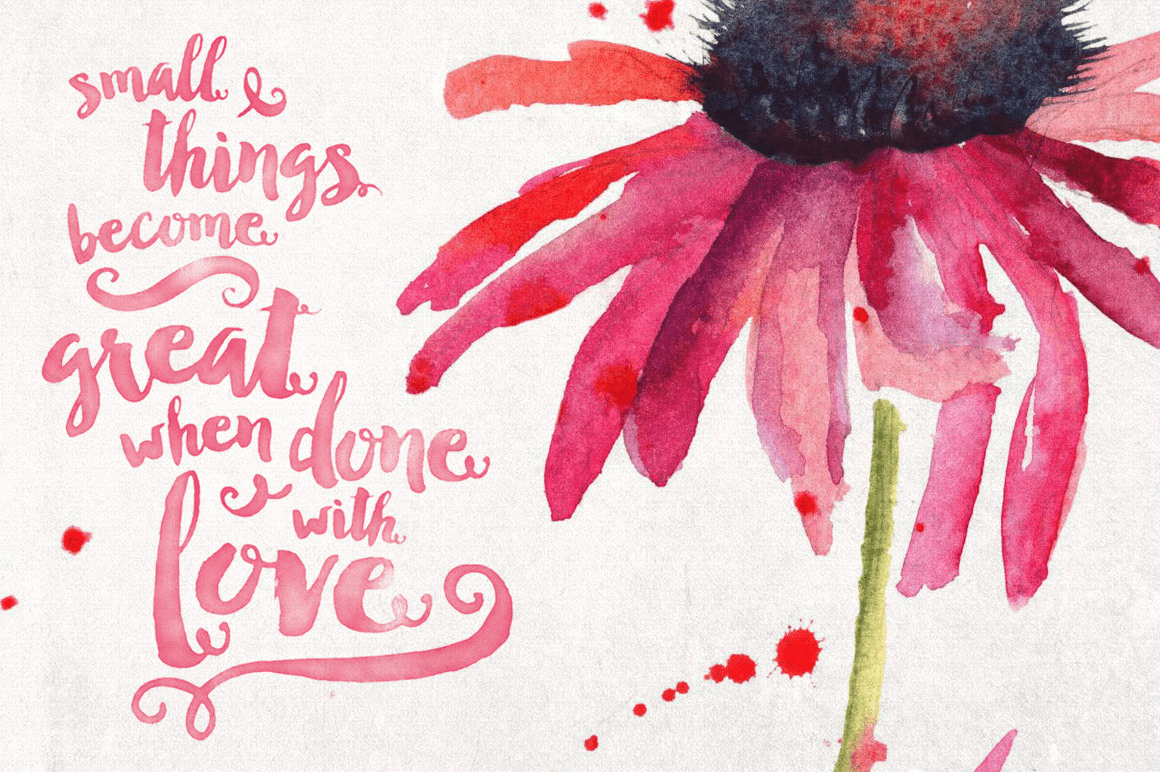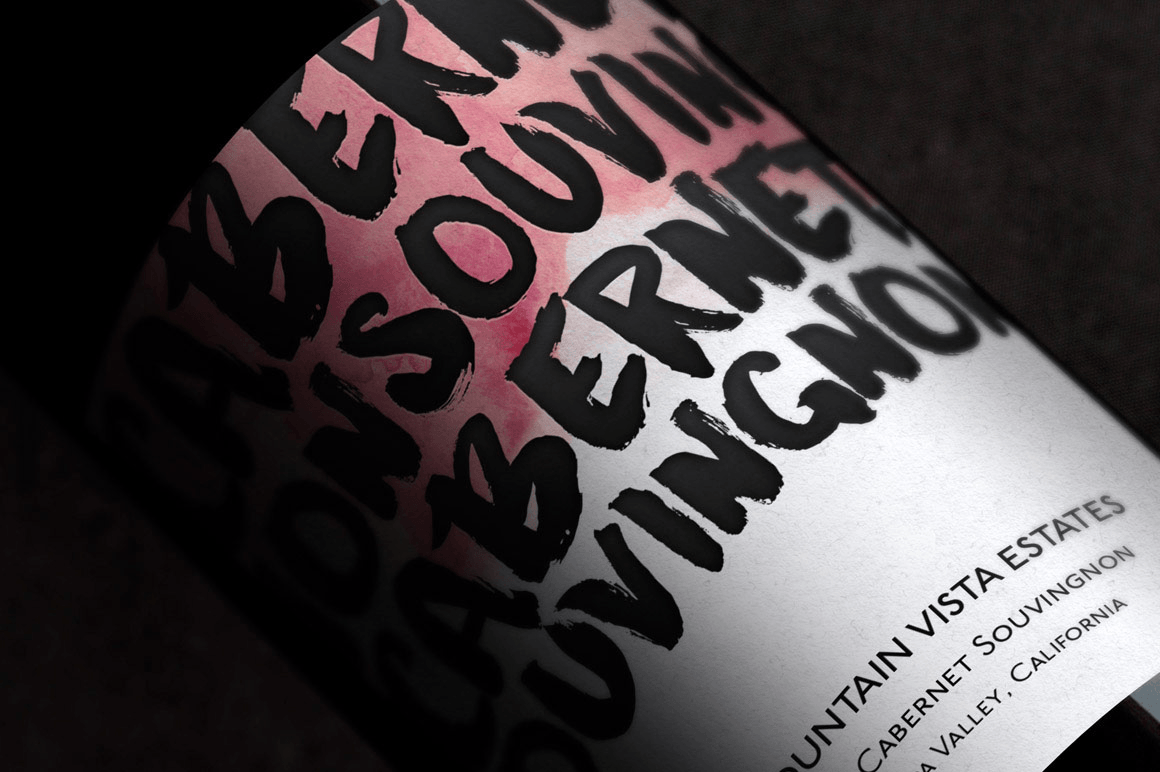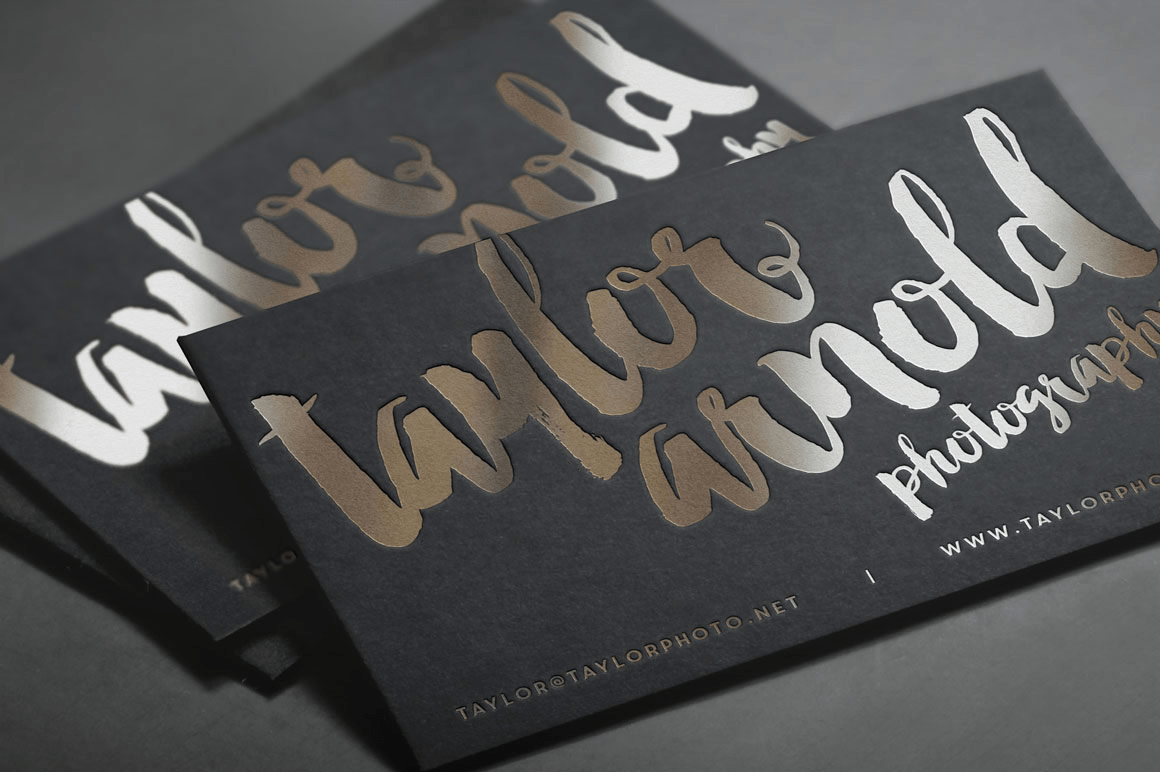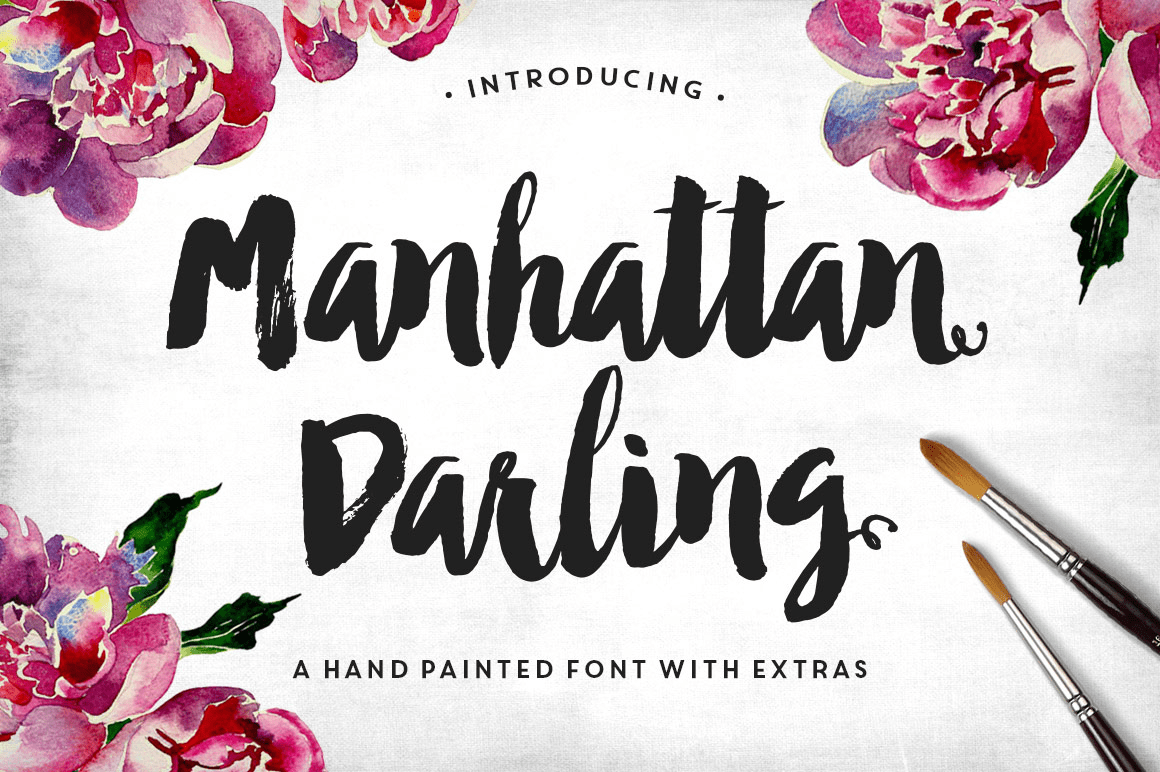
Manhattan Darling Typeface
About Manhattan Darling Typeface
Manhattan Darling Typeface was created as a dual-purpose font, with gritty, imperfect, hand-painted characters and an irregular baseline. Use the uppercase portion (Manhattan) to create a bold, organic hand-painted typography (see wine bottle preview),…